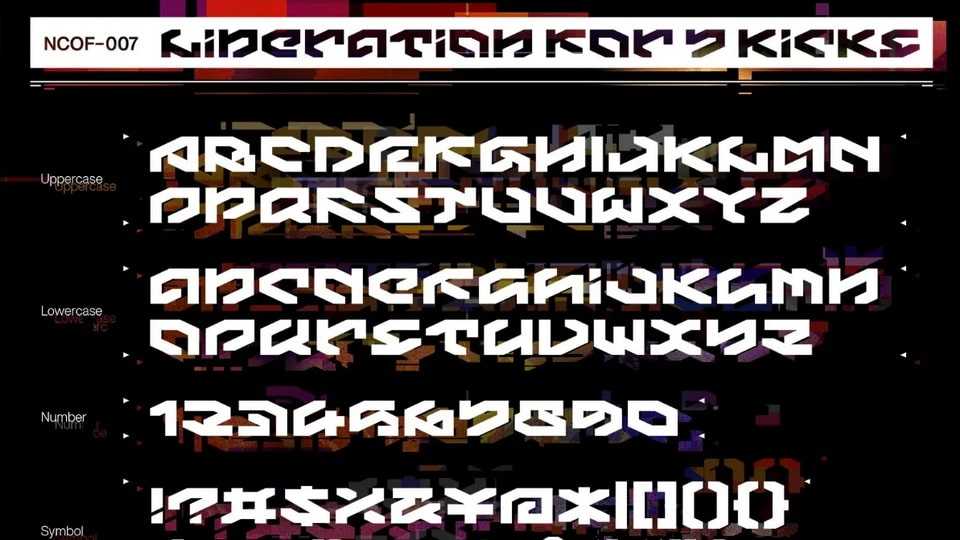
Liberation For 7 Kicks Font › Fontesk – Download Grátis
Download Liberation For 7 Kicks font, a crisp display typeface suitable for sci-fi logos and titles. The font owes its futuristic vibe to angular, top-heavy block letters that are perfect for impact messages.